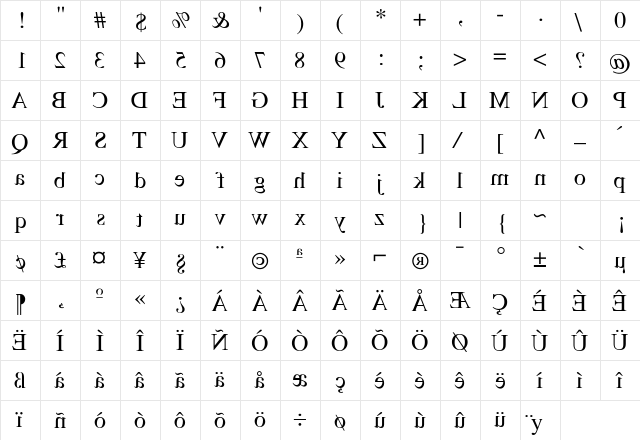
Temps Mirror
Design Context for Temps Typeface
Temps takes a measured approach to typography — its balanced proportions and neutral character make it a reliable workhorse for both digital and print work.